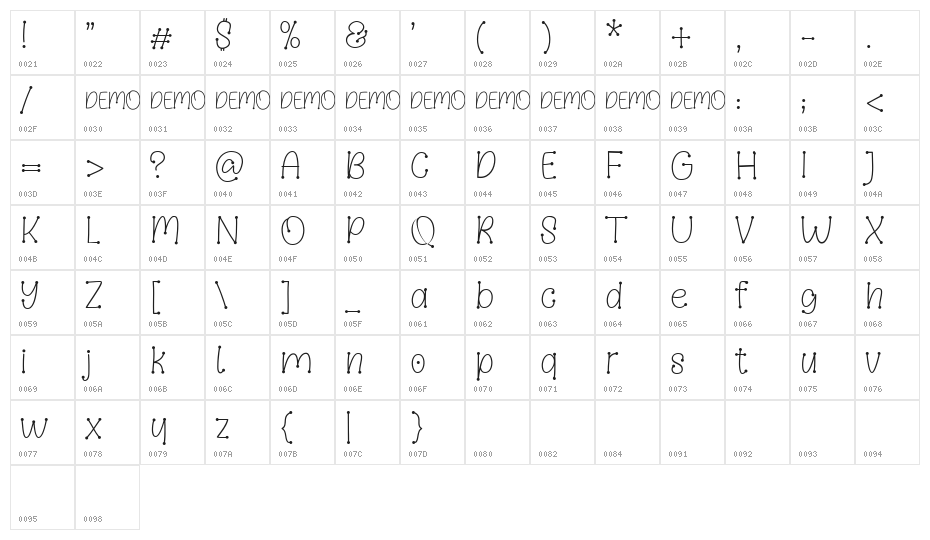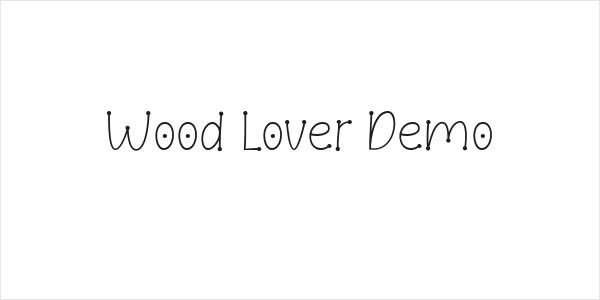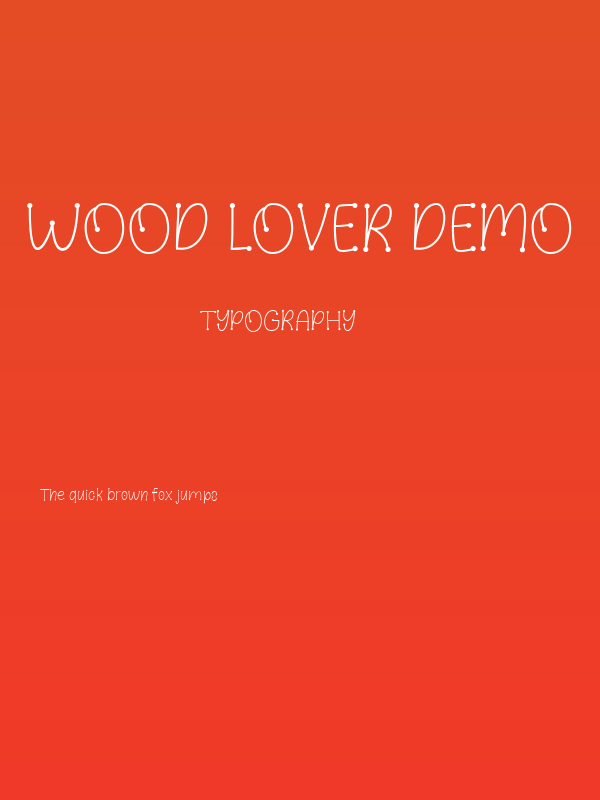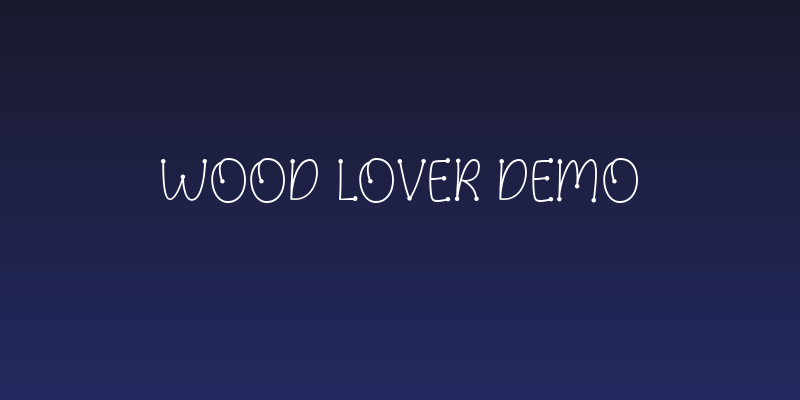
Wood Lover Demo Font
Wood Lover Demo Description
This playful and whimsical font features a unique design where each character is adorned with small circular dots at the ends of the strokes, giving it a distinctive and charming appearance. The letters are rounded and slightly irregular, adding to its casual and friendly feel. The uppercase and lowercase letters maintain a consistent style, with a slight variation in size and form that enhances its hand-drawn aesthetic. The numbers and special characters follow the same design principles, ensuring a cohesive look across all elements. This font is perfect for projects that require a touch of fun and creativity, making it ideal for children's books, playful branding, or any design that aims to convey a sense of joy and lightheartedness.
| Overall Style | Whimsical, Playful |
| Proposed Projects | Ideal for children's books, playful branding, greeting cards, and creative invitations. |